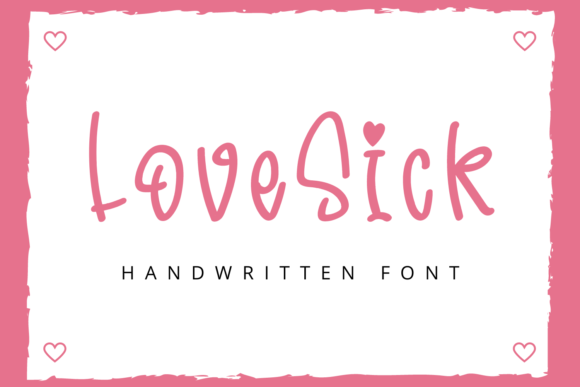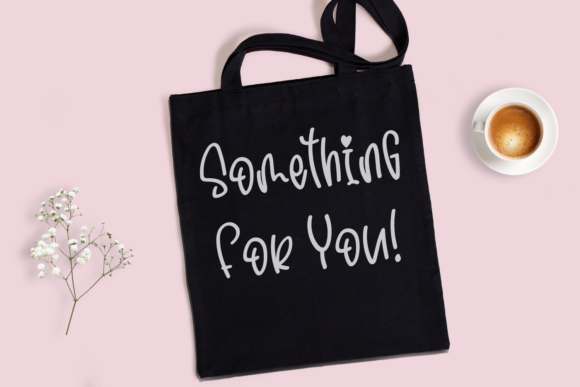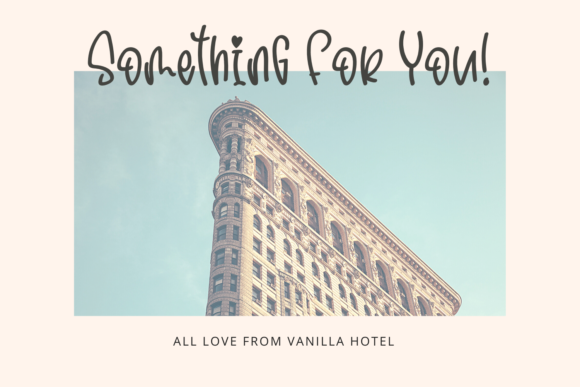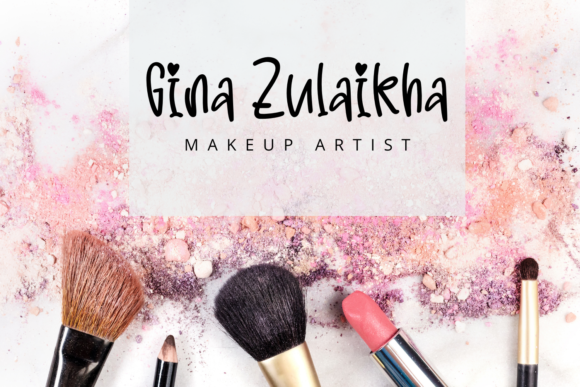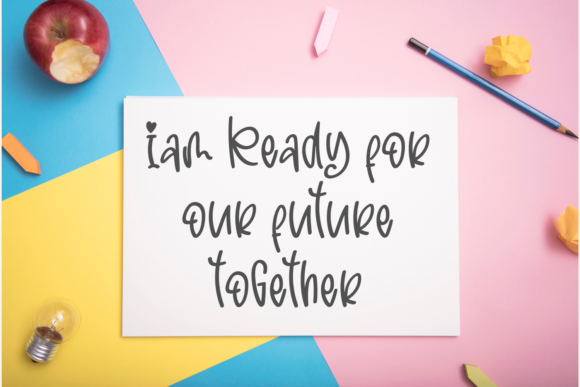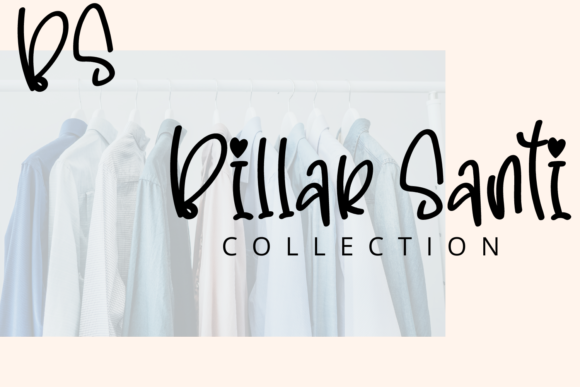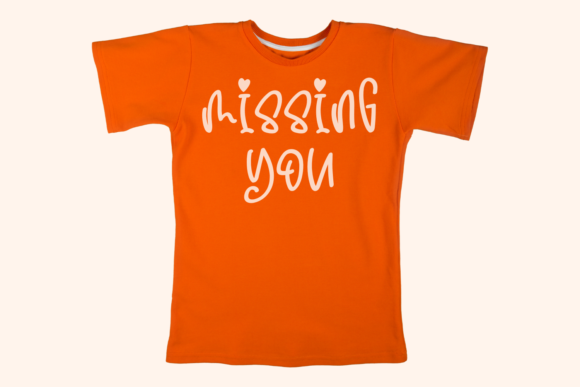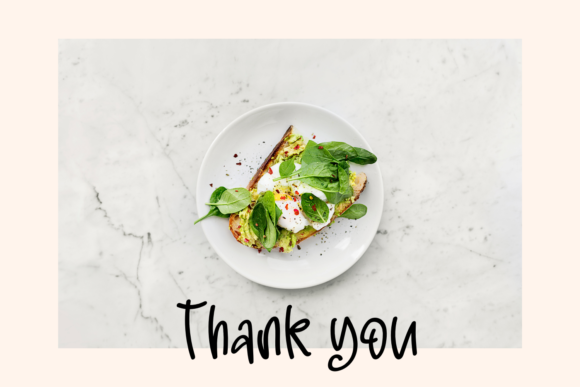
LoveSick Font
About LoveSick Font
LoveSick is a cute and eye-catching handwritten font. It’s playfulnes make it great for creative project, be it inspirational wall posters or for communicating your brand.